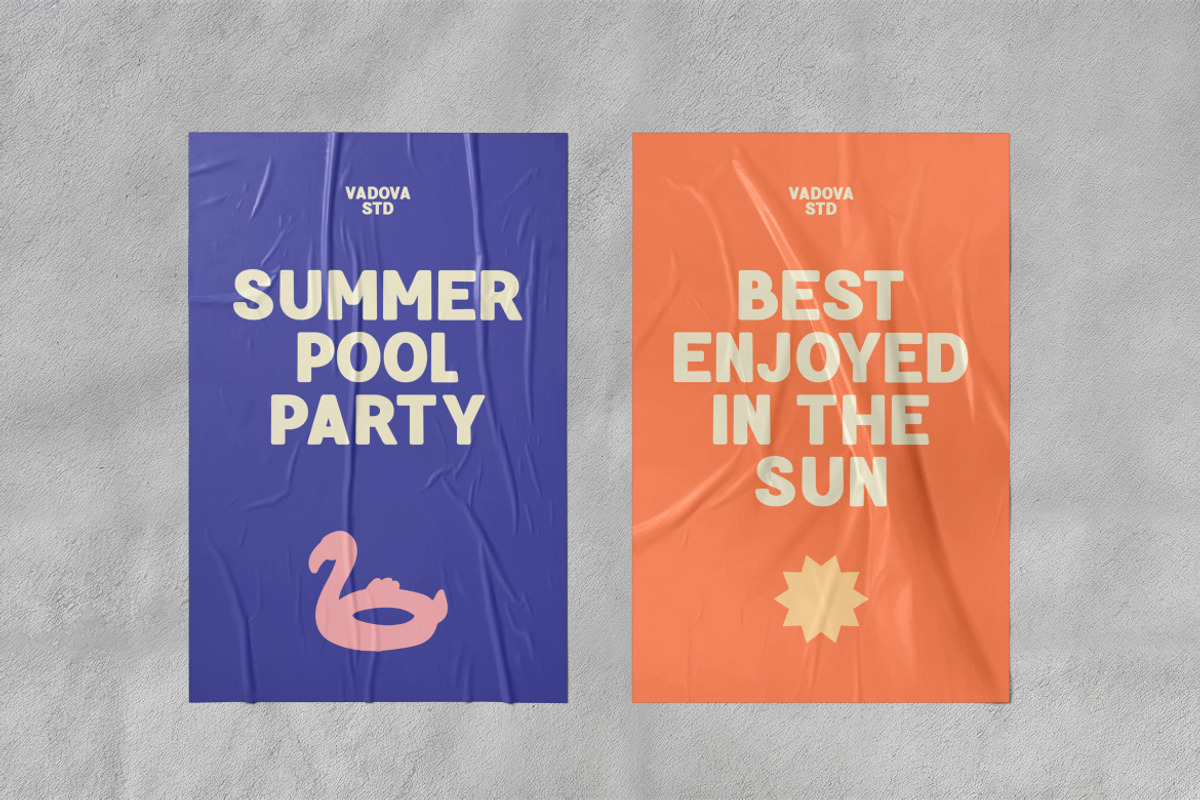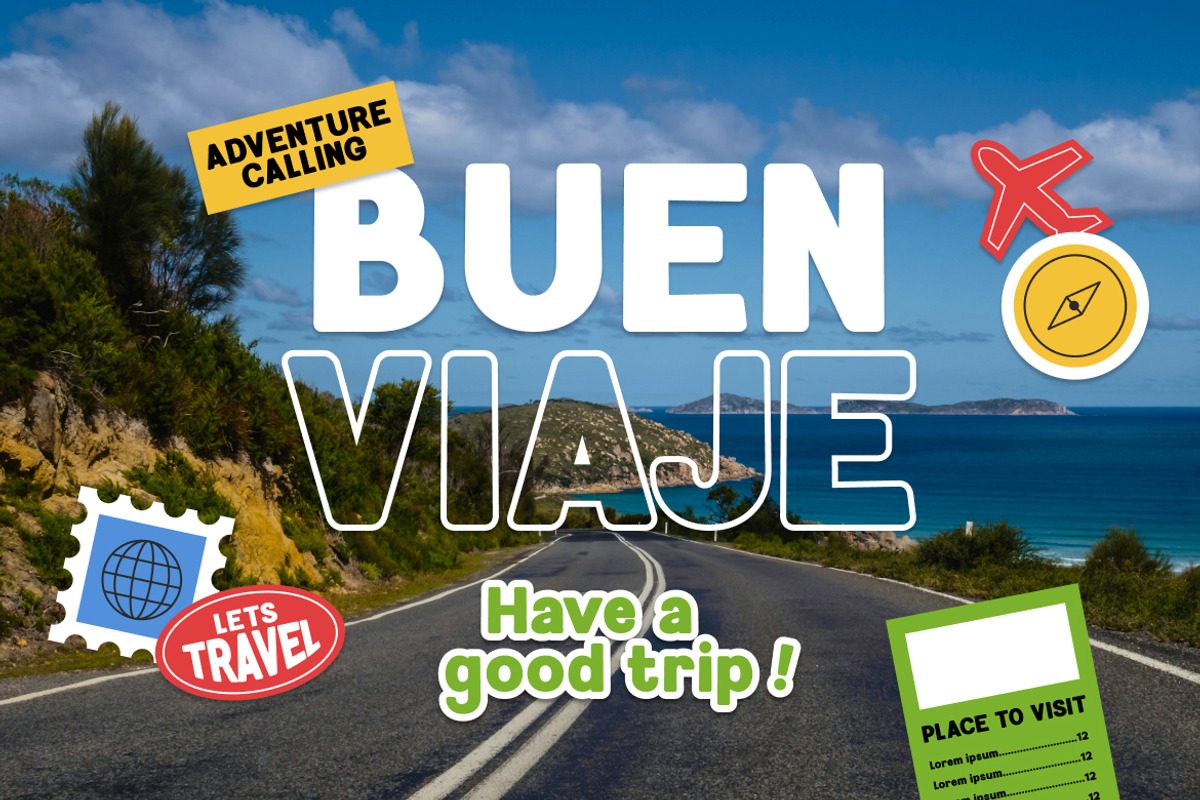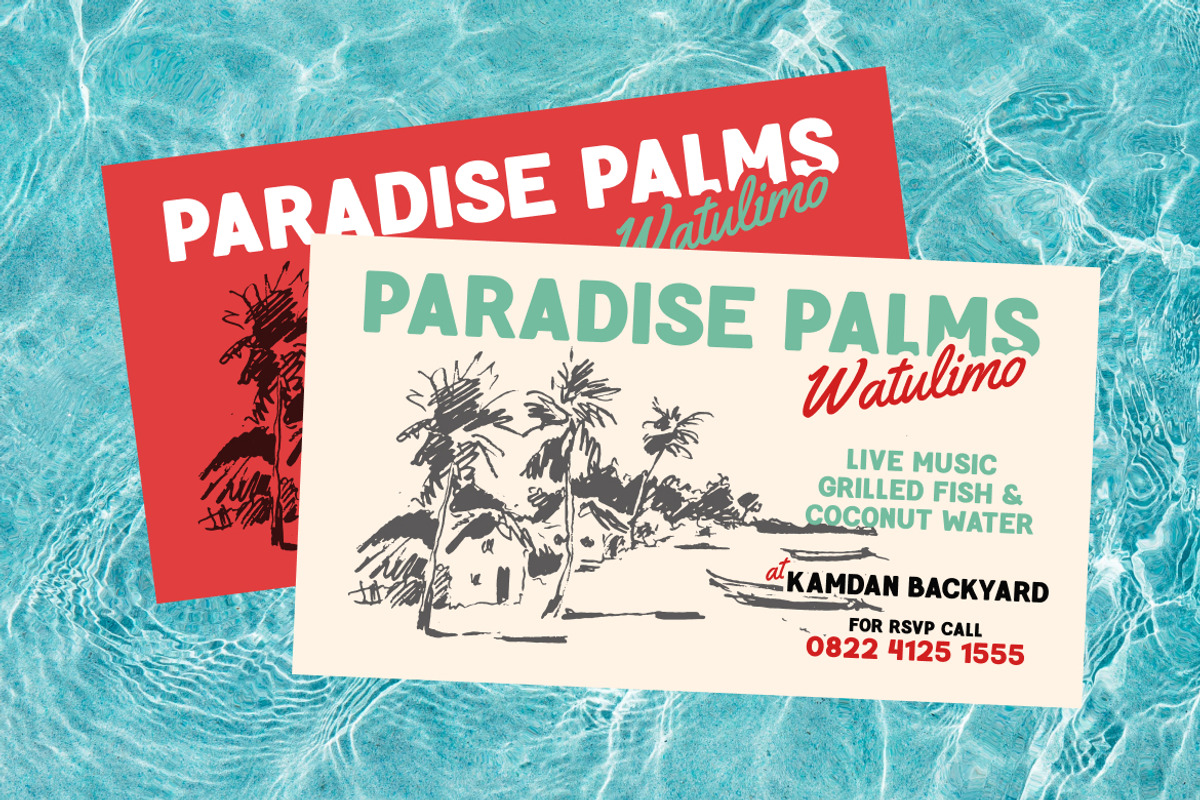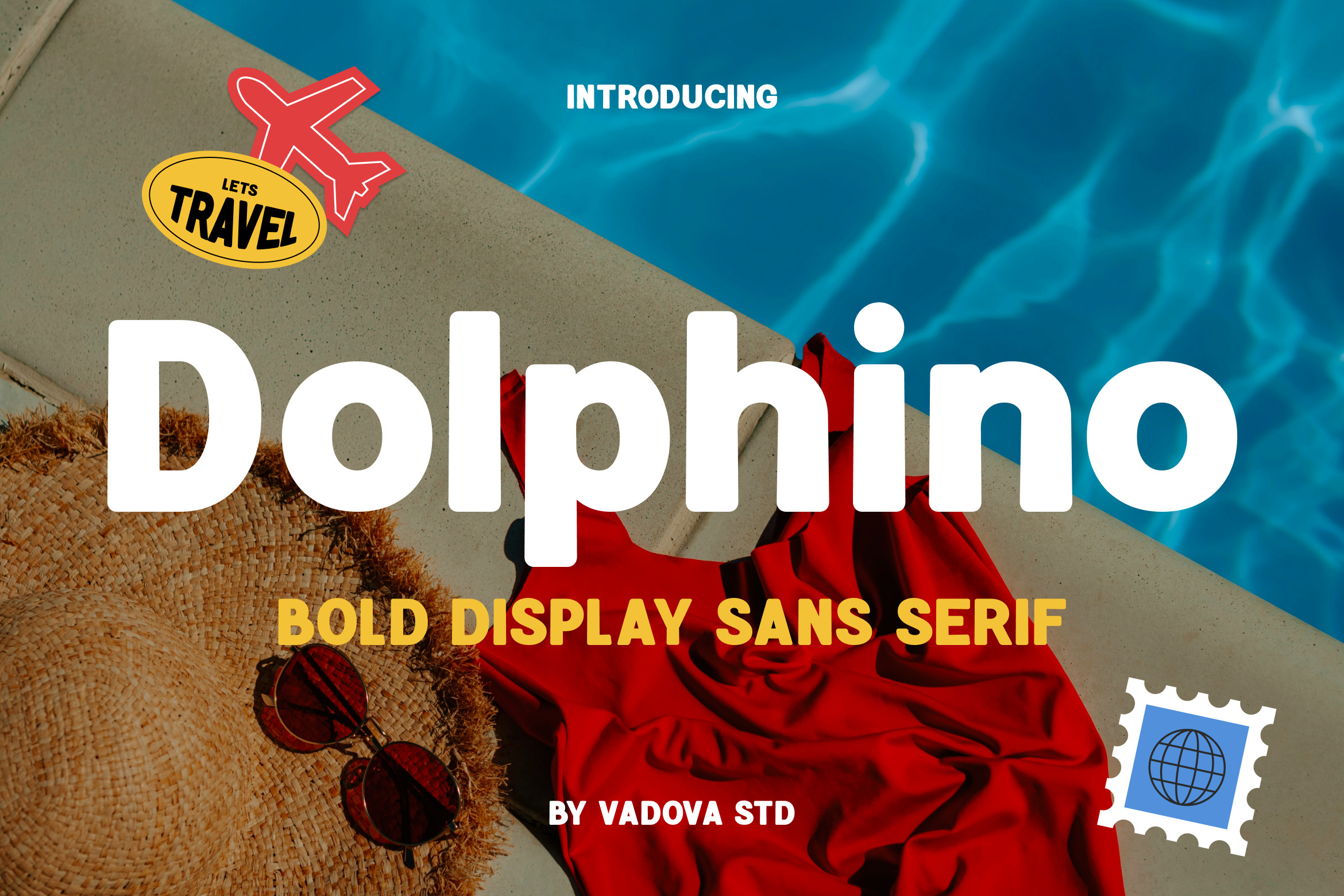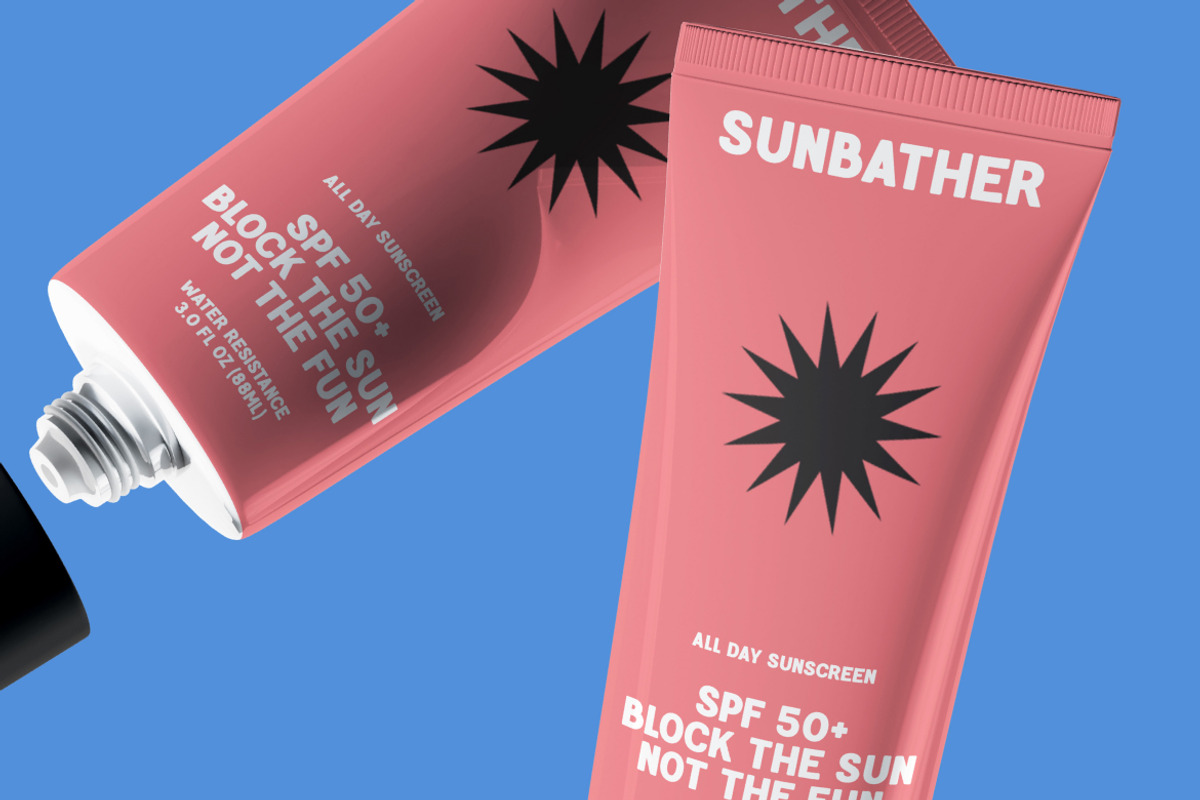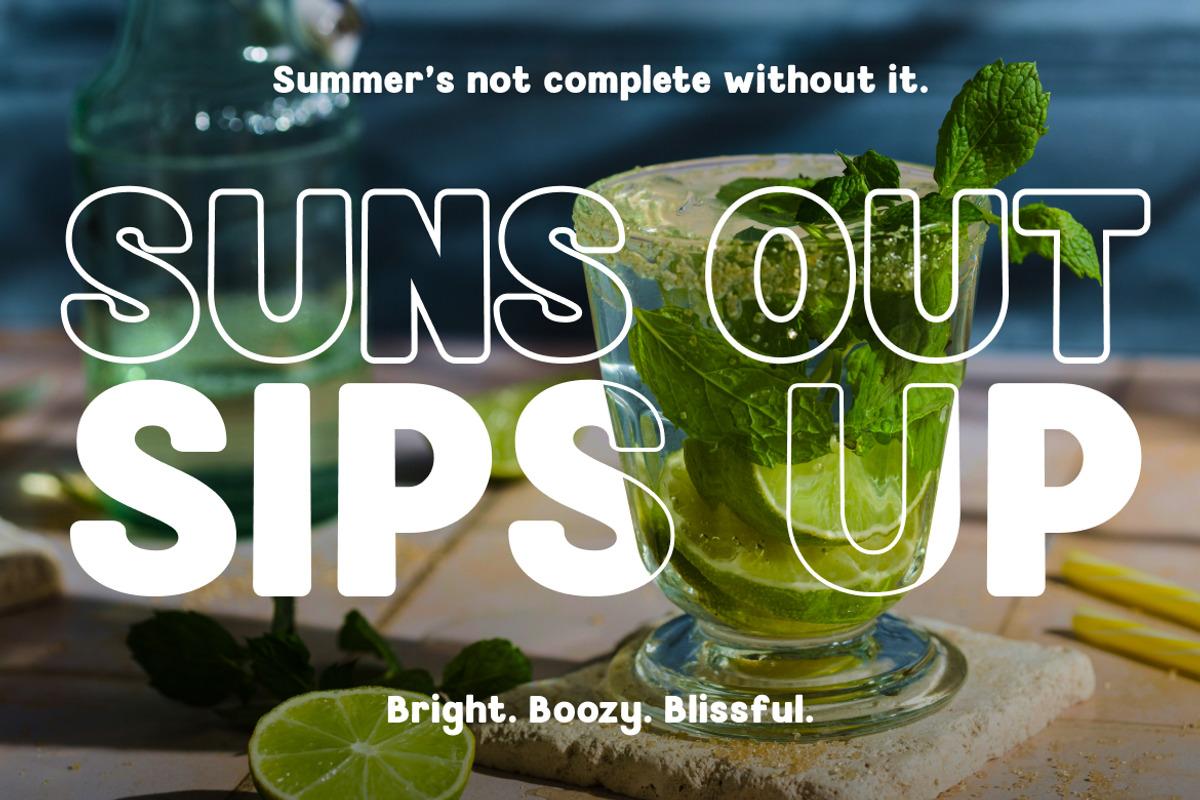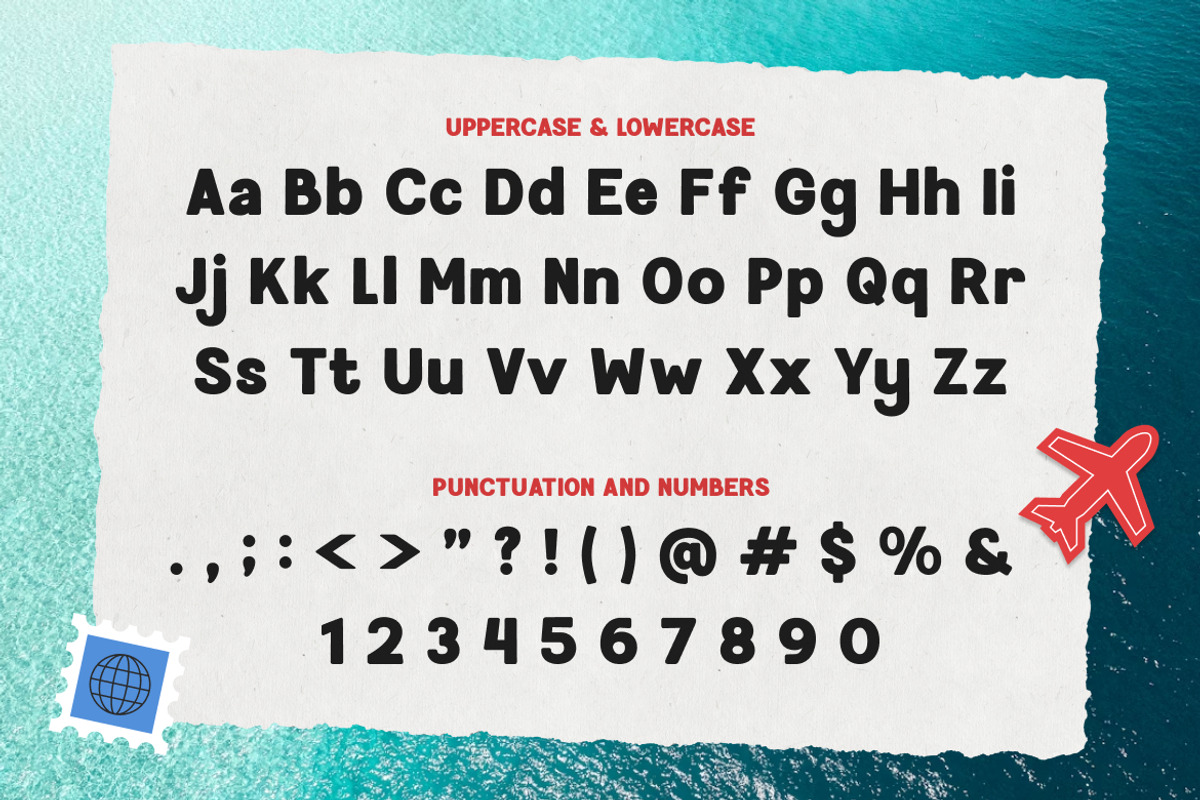
Dolphino Bold Sans Serif Font
Dolphino is a bold and cheerful sans serif display font that radiates fun, friendliness, and a youthful vibe. With rounded corners and thick, balanced strokes, it brings a playful energy that fits perfectly in travel posters, children’s designs, summer campaigns, branding, social media graphics, and more. The font includes full uppercase and lowercase letters, numbers, punctuation, and symbols. Its simple geometry makes it highly legible, even at smaller sizes, while its boldness ensures it stands out in any design. Easy to use and compatible with Adobe Illustrator, Photoshop, Canva, and other design platforms.
Dolphino is the perfect font choice for creative projects that need a light-hearted, bold, and friendly personality. Whether you're designing for children’s products, seasonal promotions, tropical travel branding, or eye-catching posters, this typeface delivers charm and clarity. Its versatile character style adapts seamlessly across print and digital formats, making it a must-have for creative professionals.
- Bold rounded sans serif style with soft, approachable curves
- Thick, uniform stroke weight for strong visibility and modern impact
- Friendly letterforms with smooth terminals for a playful character
- Balanced proportions that enhance readability across sizes
- Optimized for vibrant headlines, posters, and digital media use
- Children’s product packaging and toy branding
- Travel posters, vacation flyers, and summer campaign graphics
- Social media posts and content templates with playful energy
- Greeting cards, merchandise, and lifestyle apparel designs
- Educational materials, book covers, and activity printables for kids